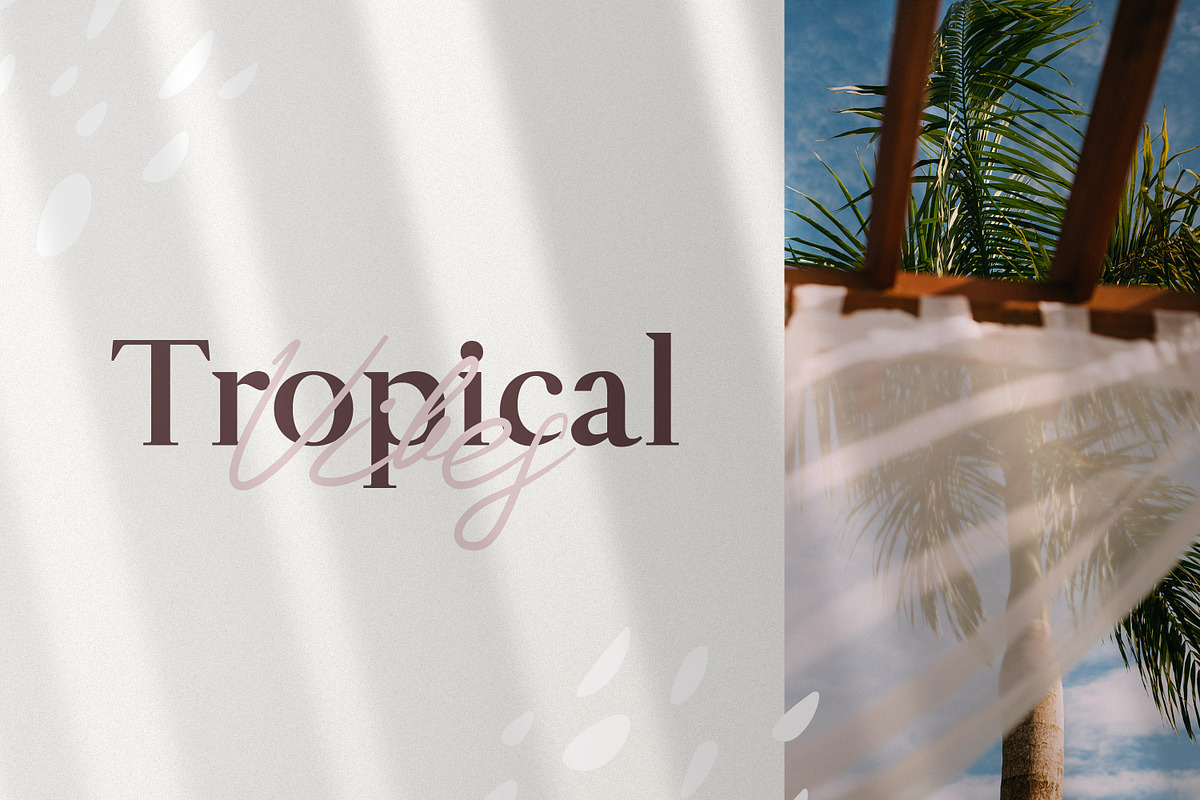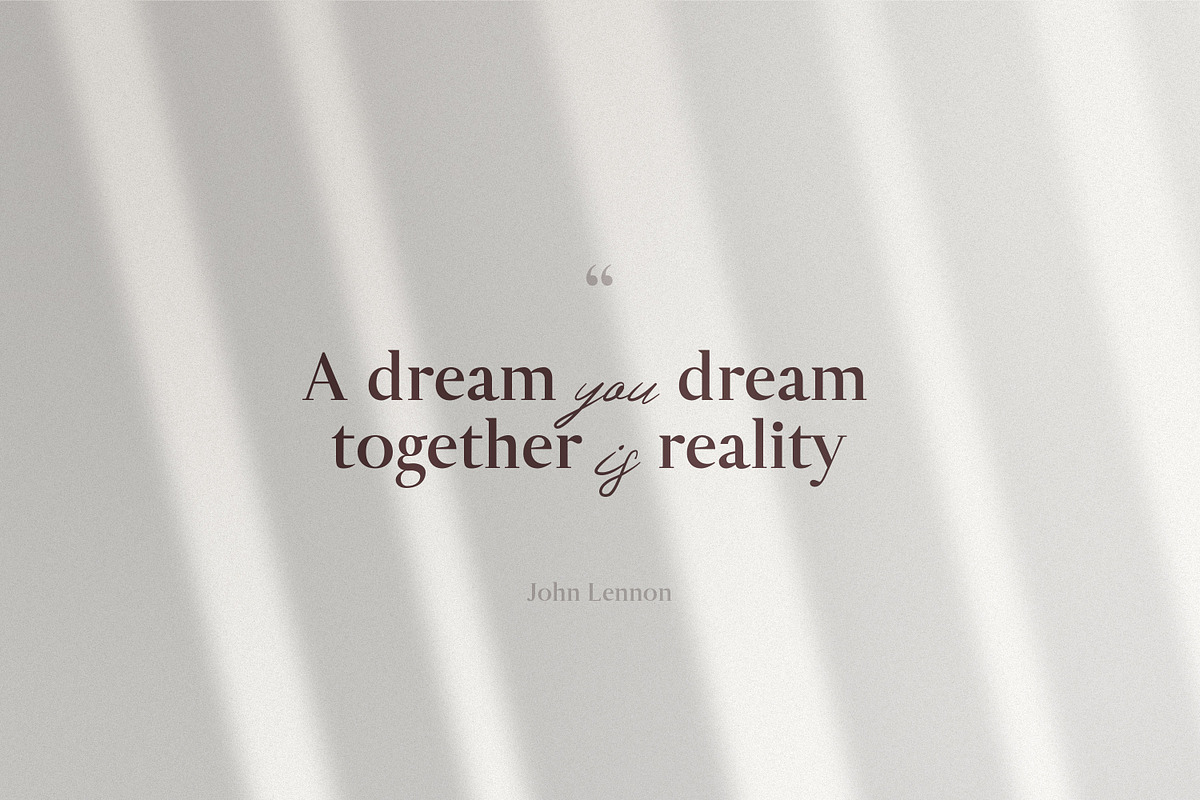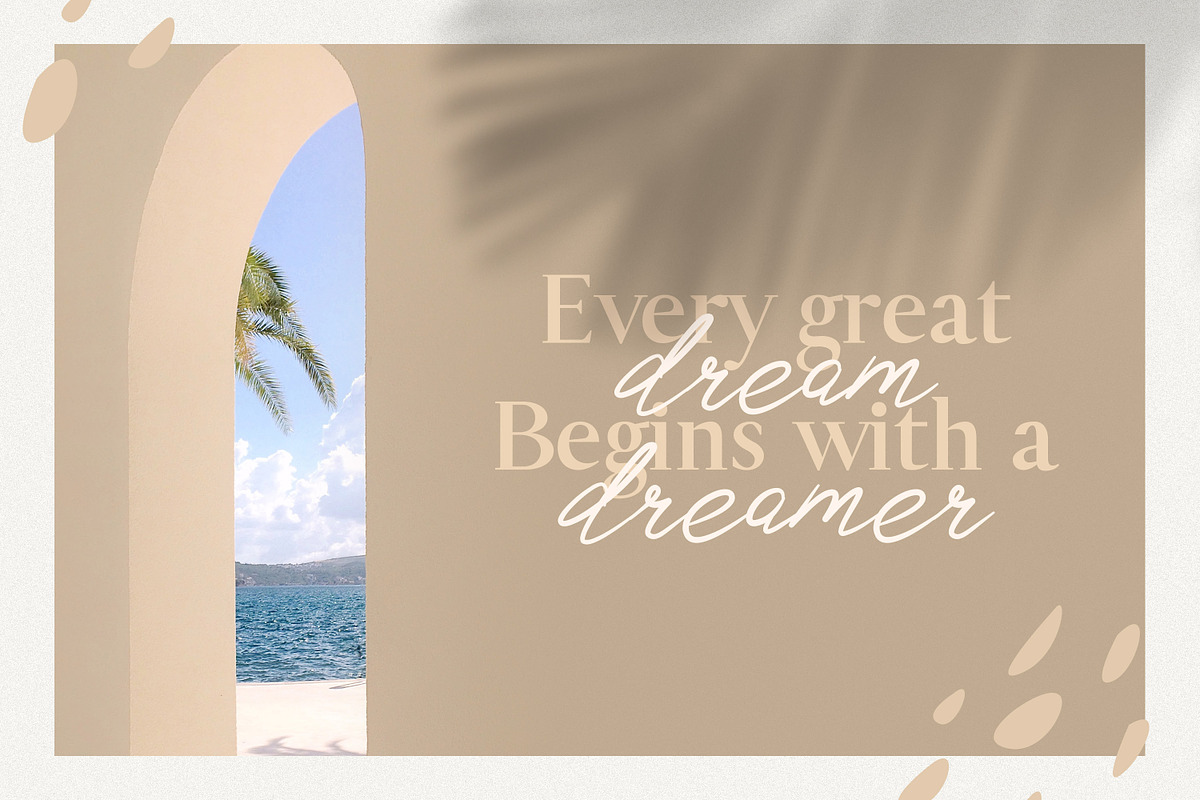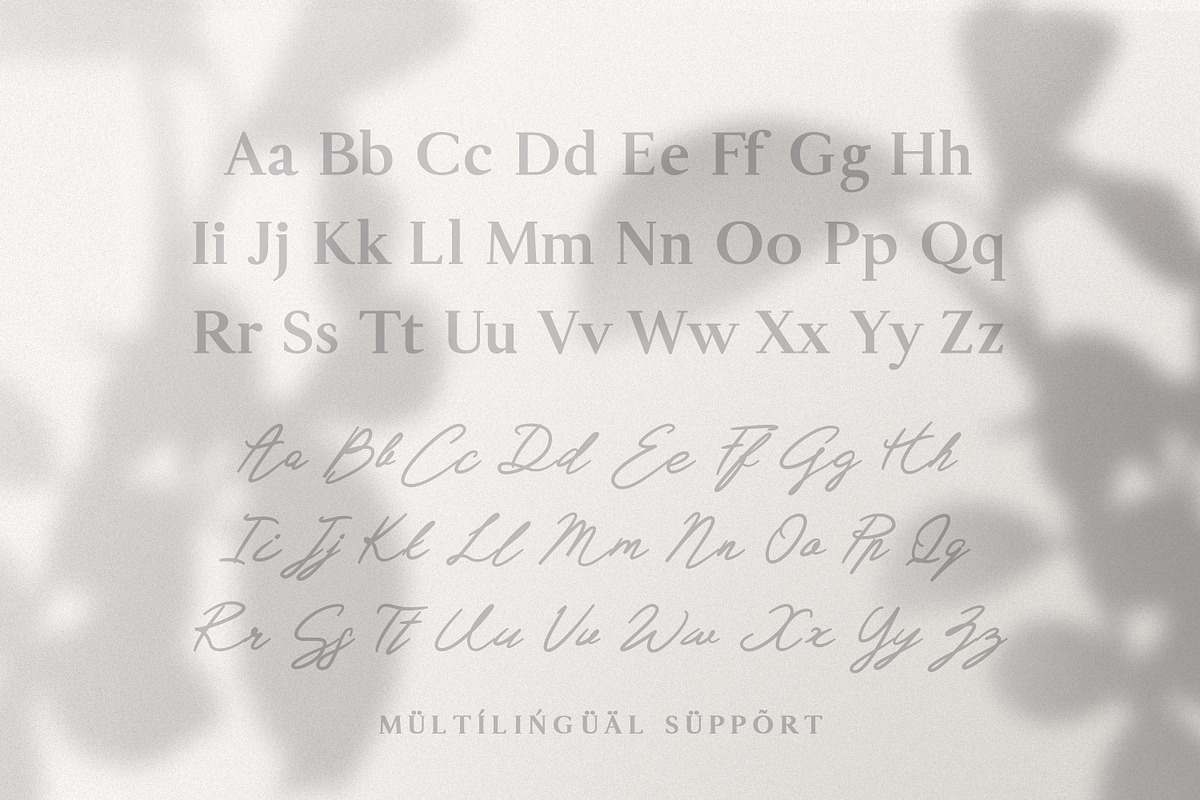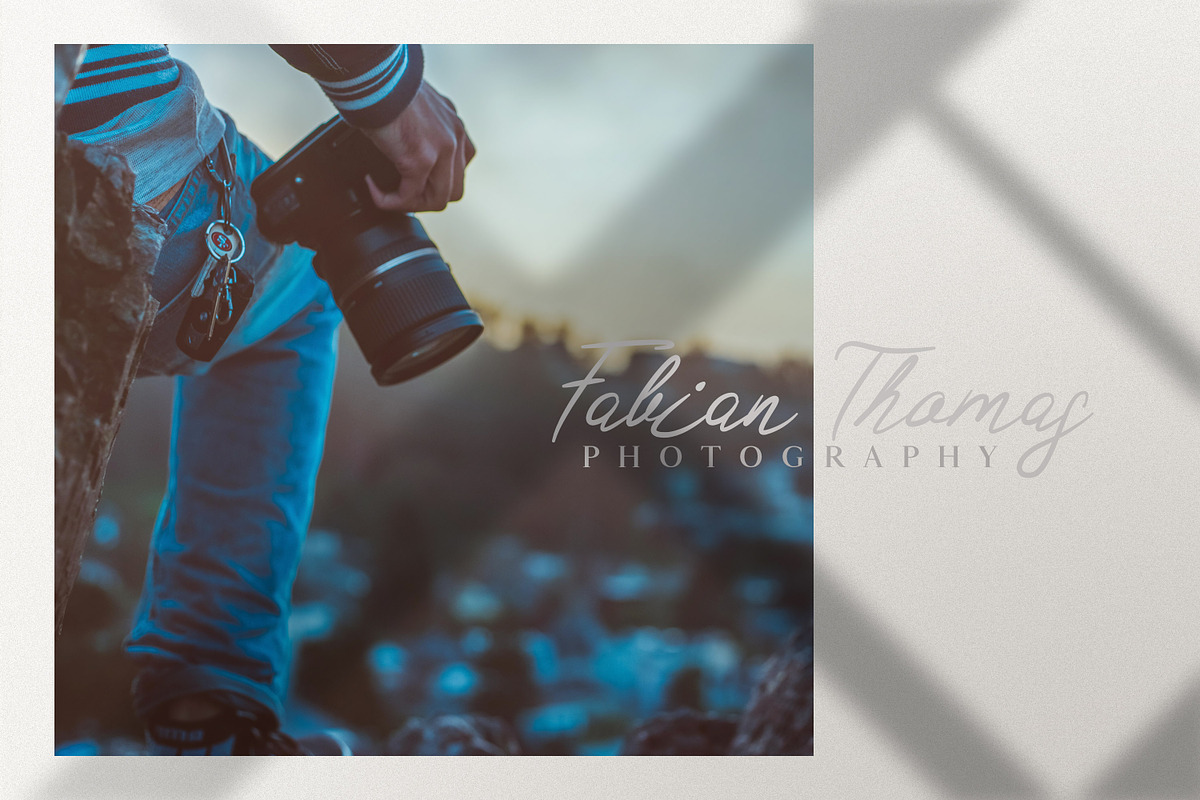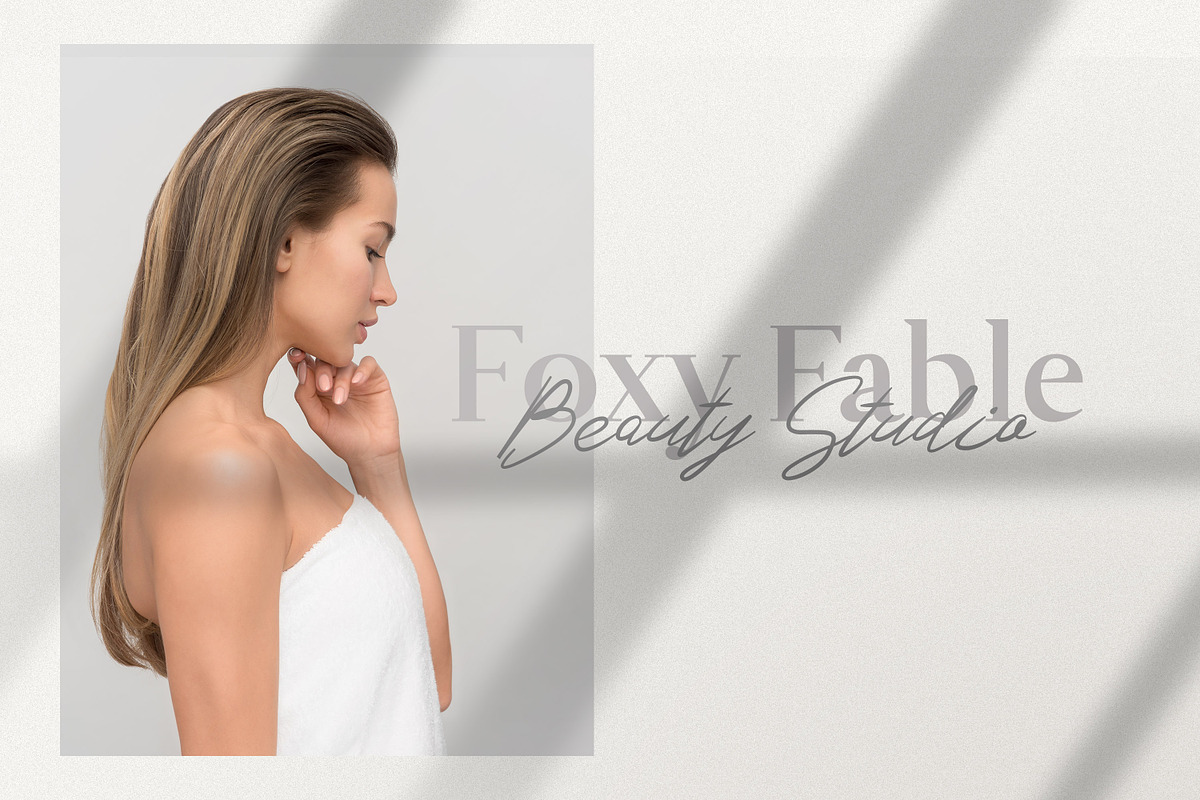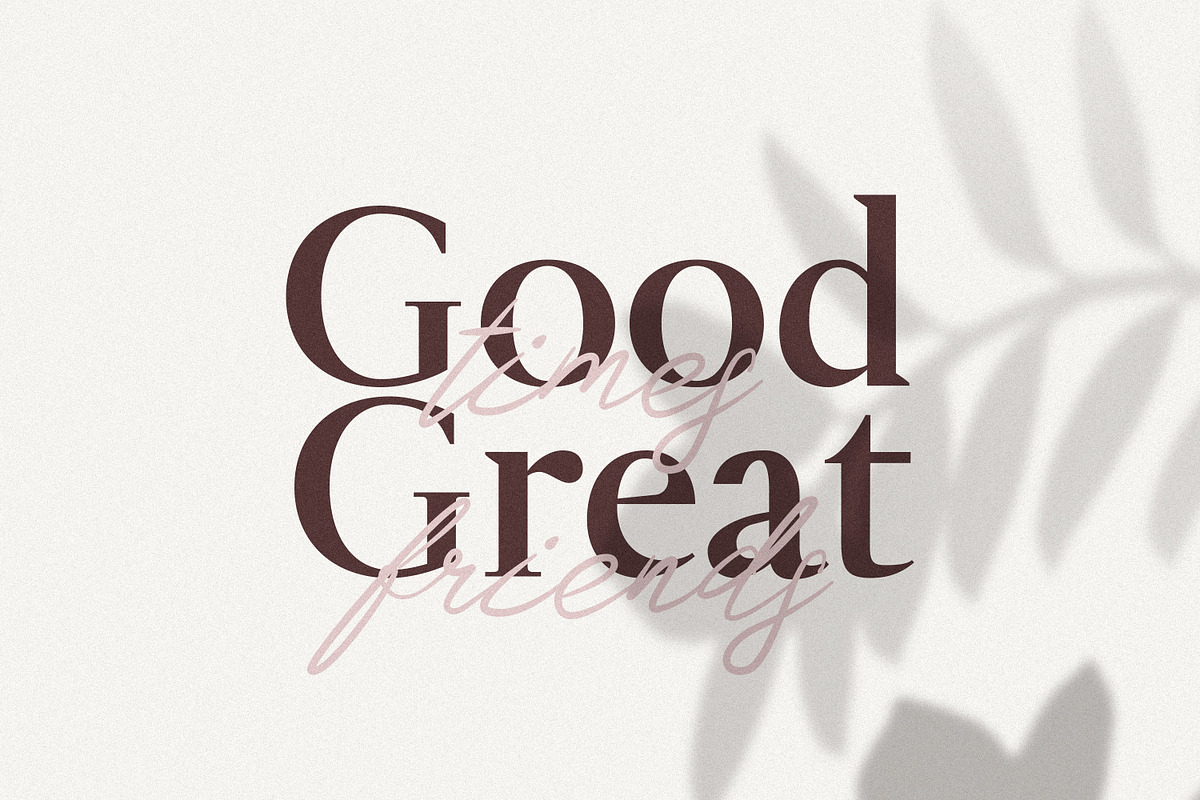
Living Dreams - Serif & Script Font
Introducing Living Dreams - a combination of a classic serif & elegant script fonts .
The font duo pairs perfectly and makes it easier to create modern logos, posters, invitations, package design and so much more. The font pair is perfect for designs that require a luxurious and classy vibe.
The serif font work perfectly for all kinds of headlines and text copy and the script font adds a nice accent to the whole design/composition.
Both fonts include all the English characters, special characters and basic multilingual glyphs.